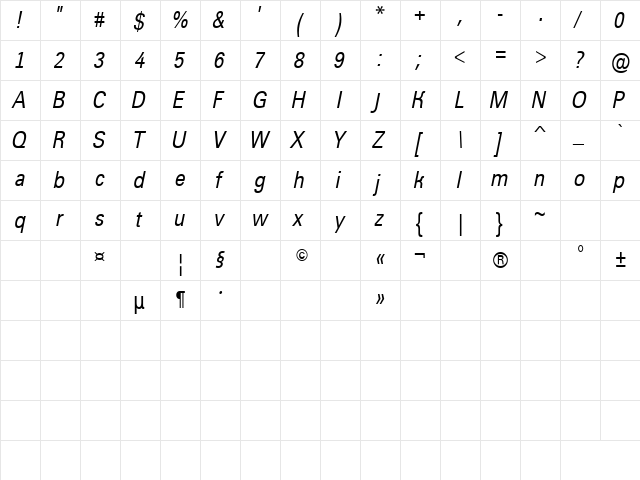
Design Context for a_GroticNr Typeface
a_GroticNr is a composed and adaptable typeface that performs quietly and consistently across a wide range of design contexts. Its italic angle brings a sense of urgency and motion to the letterforms.
Pro Tip: Try a_GroticNr for annotation and caption copy alongside an upright companion — the contrast in angle creates a dynamic but ordered typographic system.